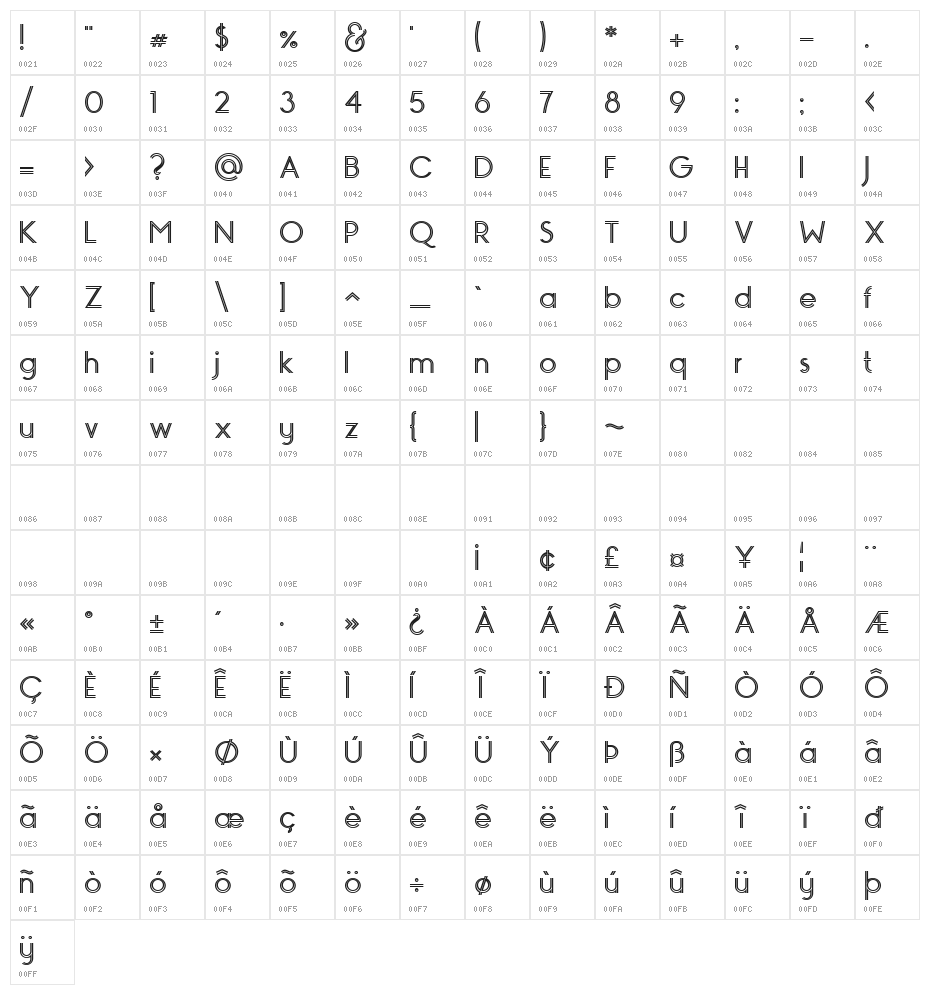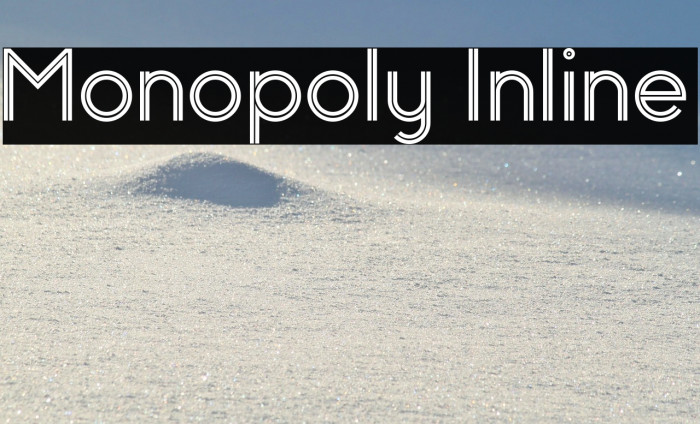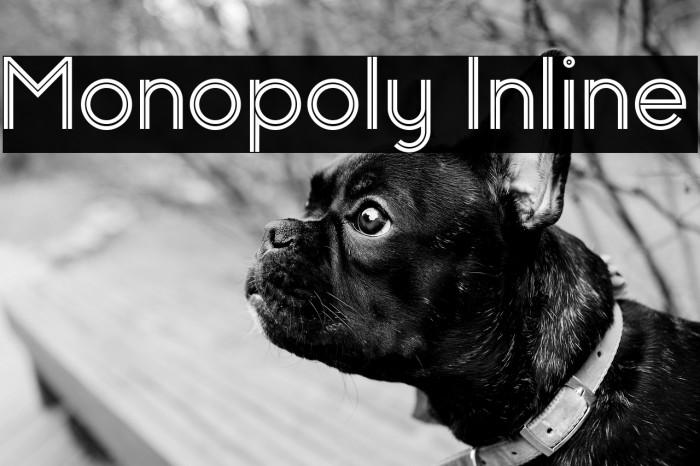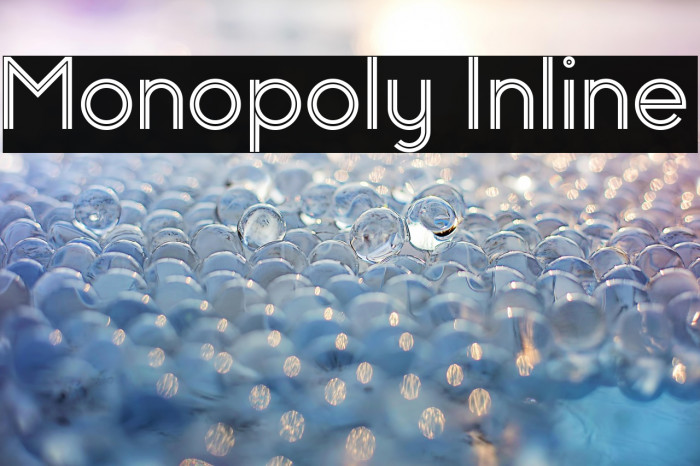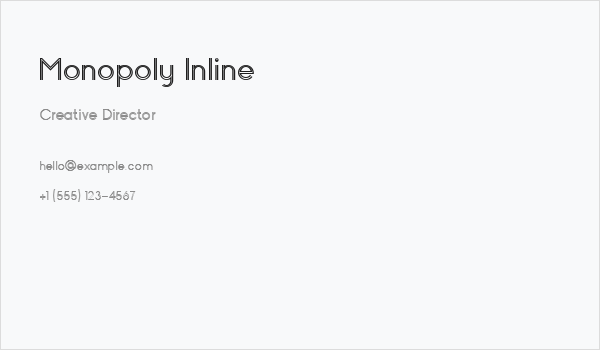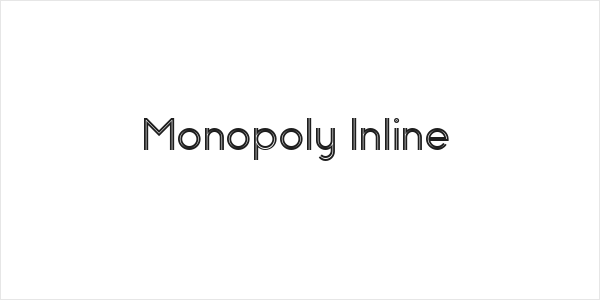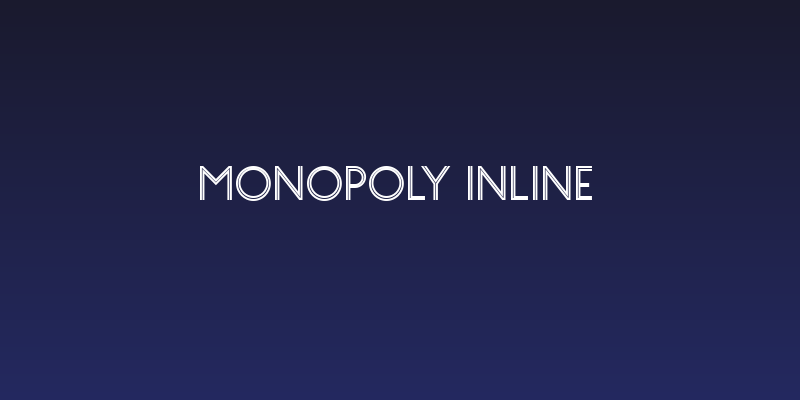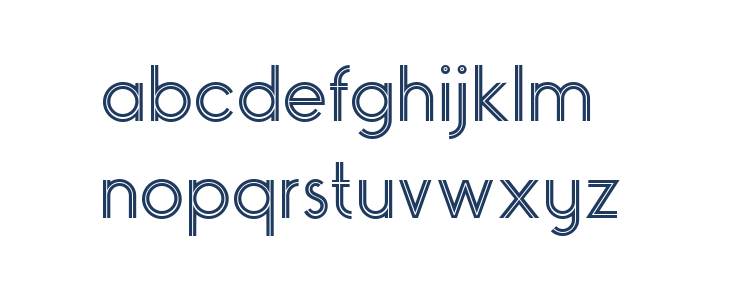
Monopoly Inline Font
Monopoly Inline Description
This font features a distinctive inline style, characterized by its clean, geometric lines and open counters. The uppercase and lowercase letters maintain a consistent width, creating a harmonious and balanced appearance. The numerals and special characters are designed with the same attention to detail, ensuring readability and visual appeal. The inline design adds a touch of elegance and sophistication, making it suitable for various design applications. The font's modern aesthetic is complemented by its precise and uniform stroke widths, which contribute to its overall clarity and legibility.
| Proposed Projects | Ideal for branding, headlines, posters, and editorial design where a modern and sophisticated look is desired. |